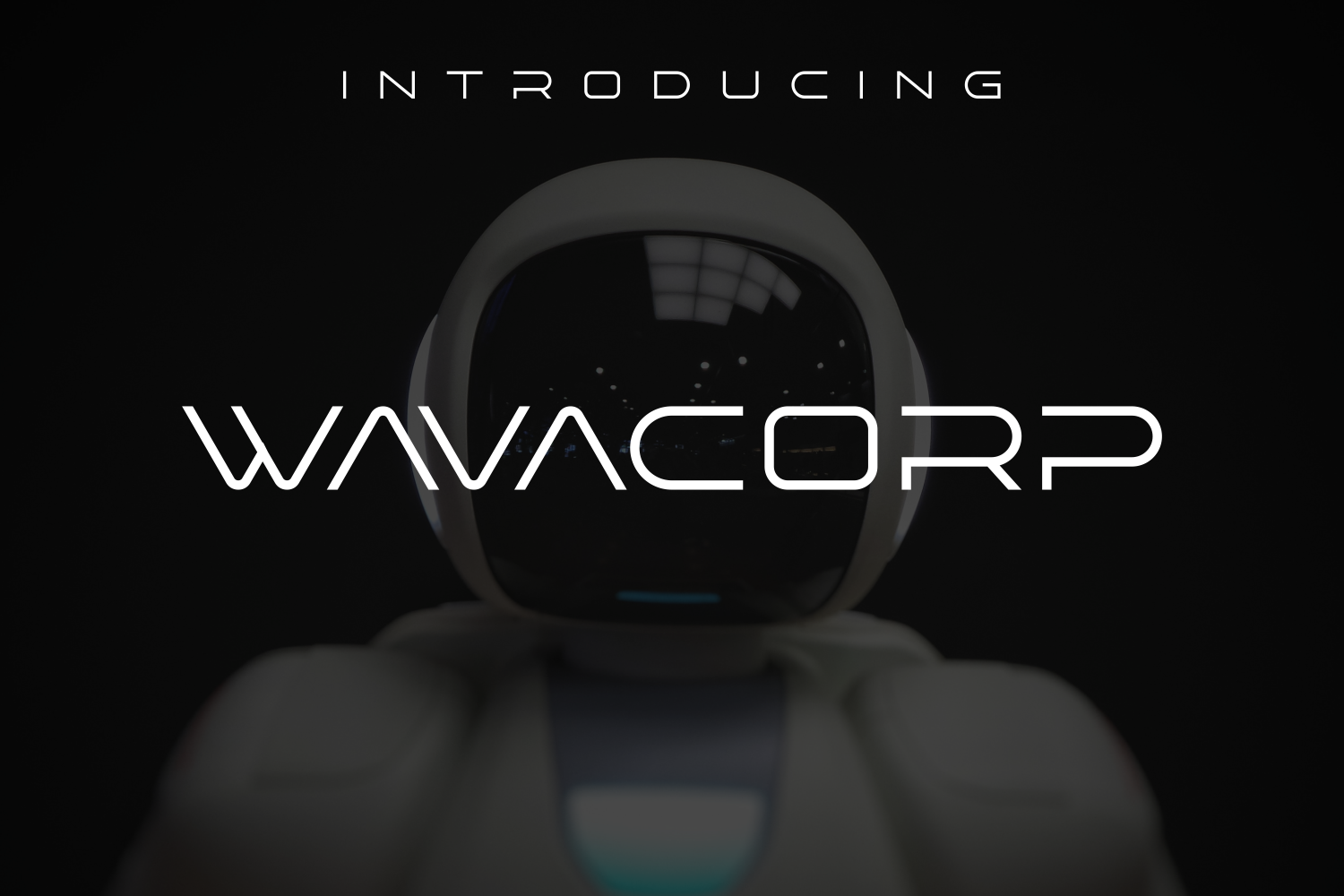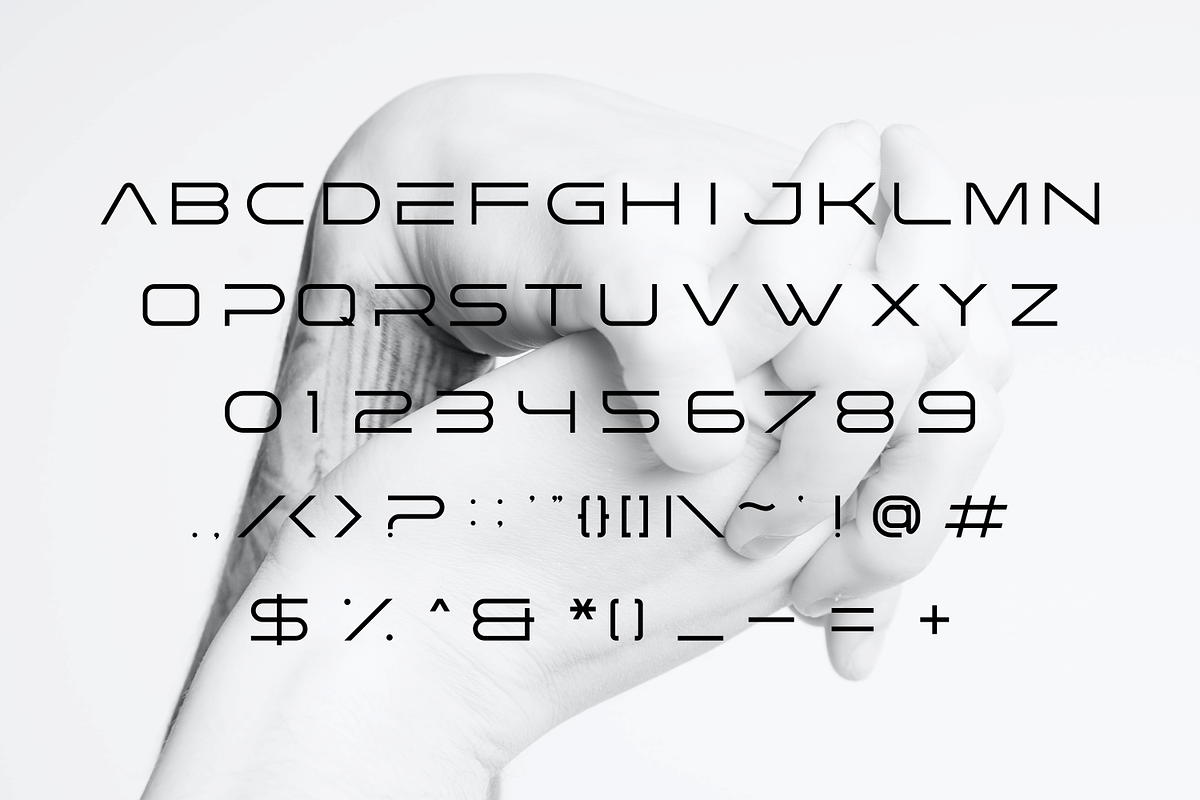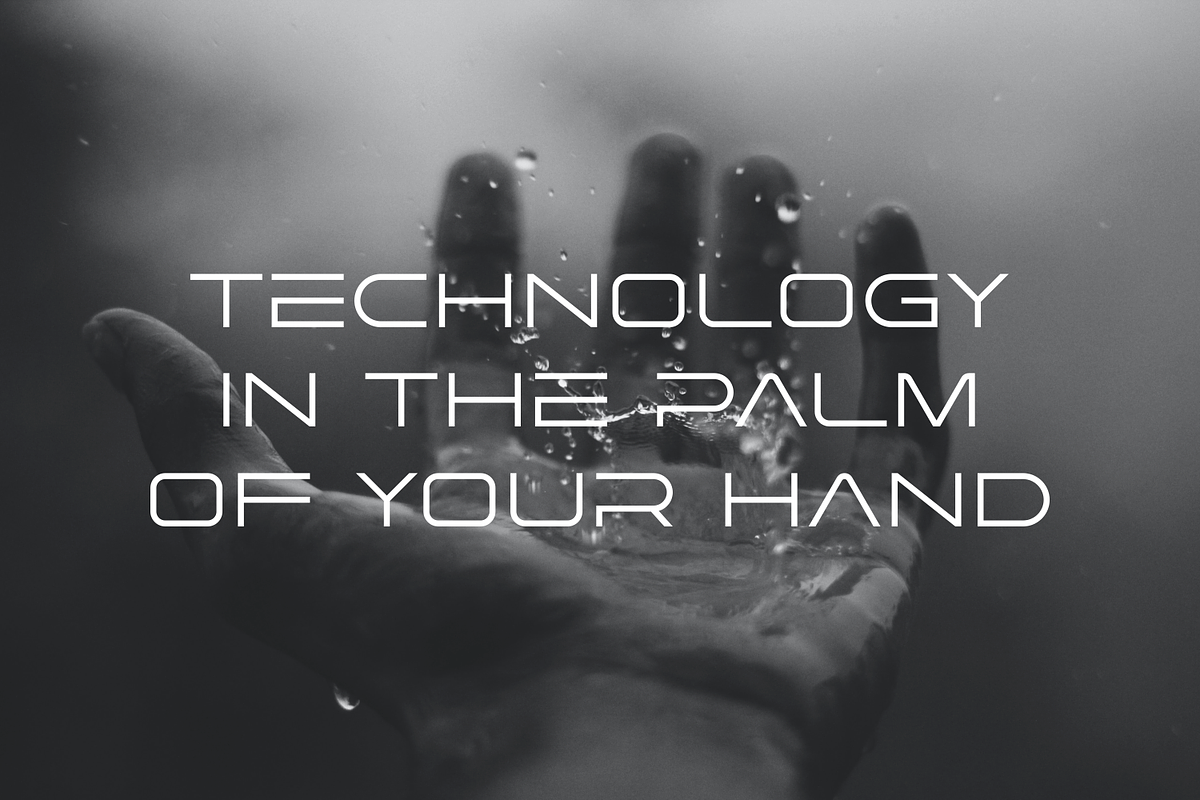
Wavacorp sans serif font
Wavacorp is a wide, round, contemporary sans serif typeface that was conceived as a branding and editorial solution. This Font was designed as a versatile and flexible that can be used on a range of projects and mediums.